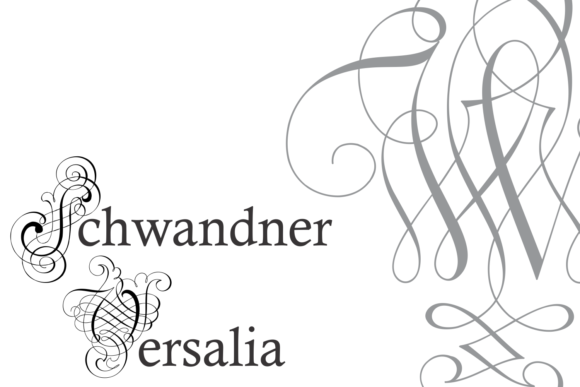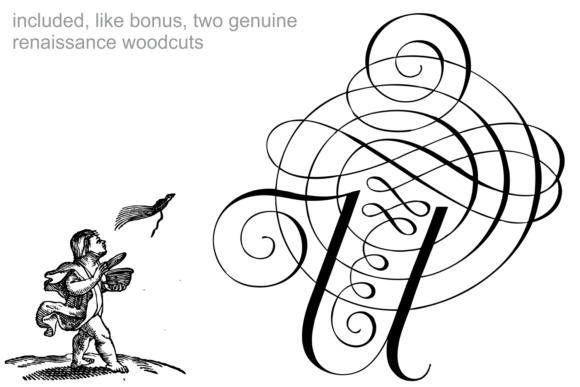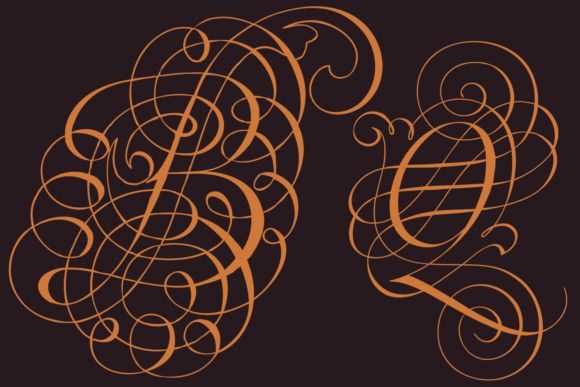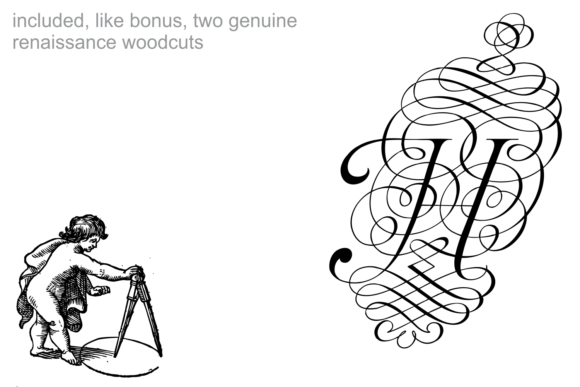
Schwandner Versalia Font
About the Schwandner Versalia Font
Step up your design game with Schwandner Versalia Font, a font that exudes confidence and style. A highly intrincated decorative capital from the work of Johann Georg Schwandner (1716-1791). An accurate historical revival and interpretation of Iza W, at Intellecta Design. State-of-art to use in headings, chapter initials from books, magazines and other publications. It also can be used in baroque and renaissance inspired layouts, or modern mixed proposals